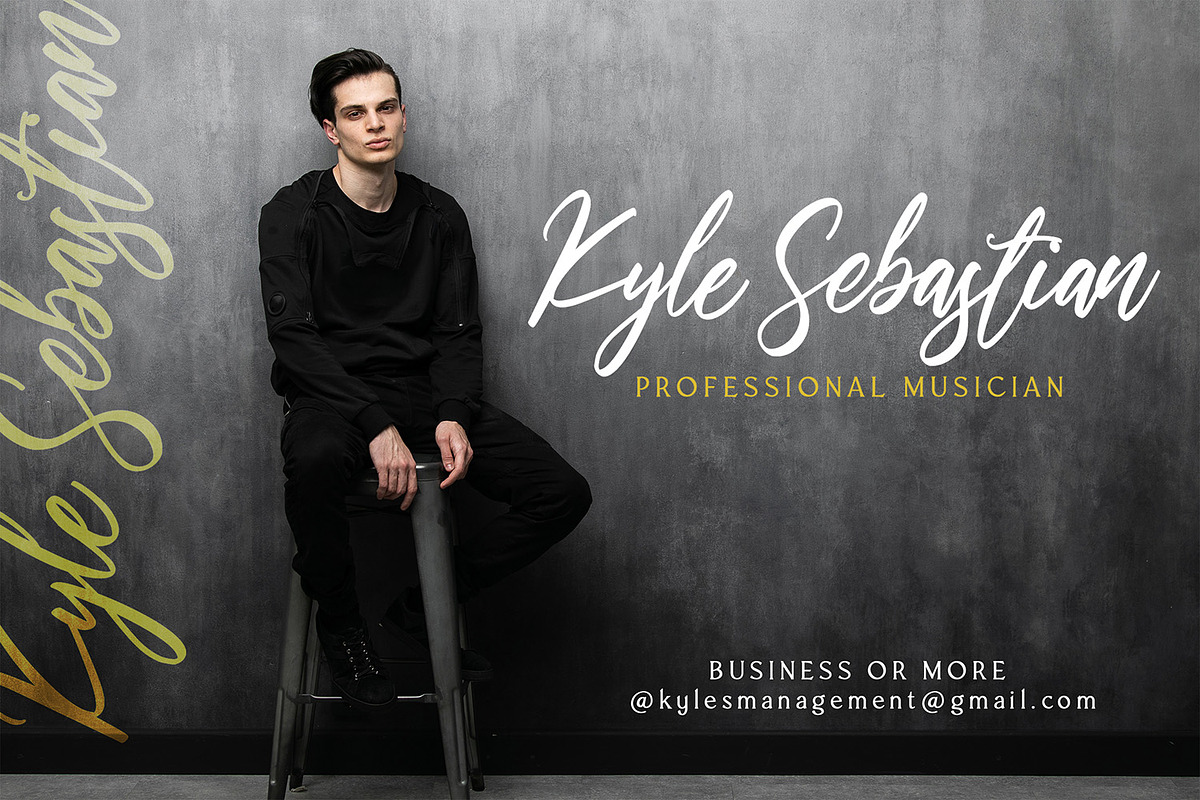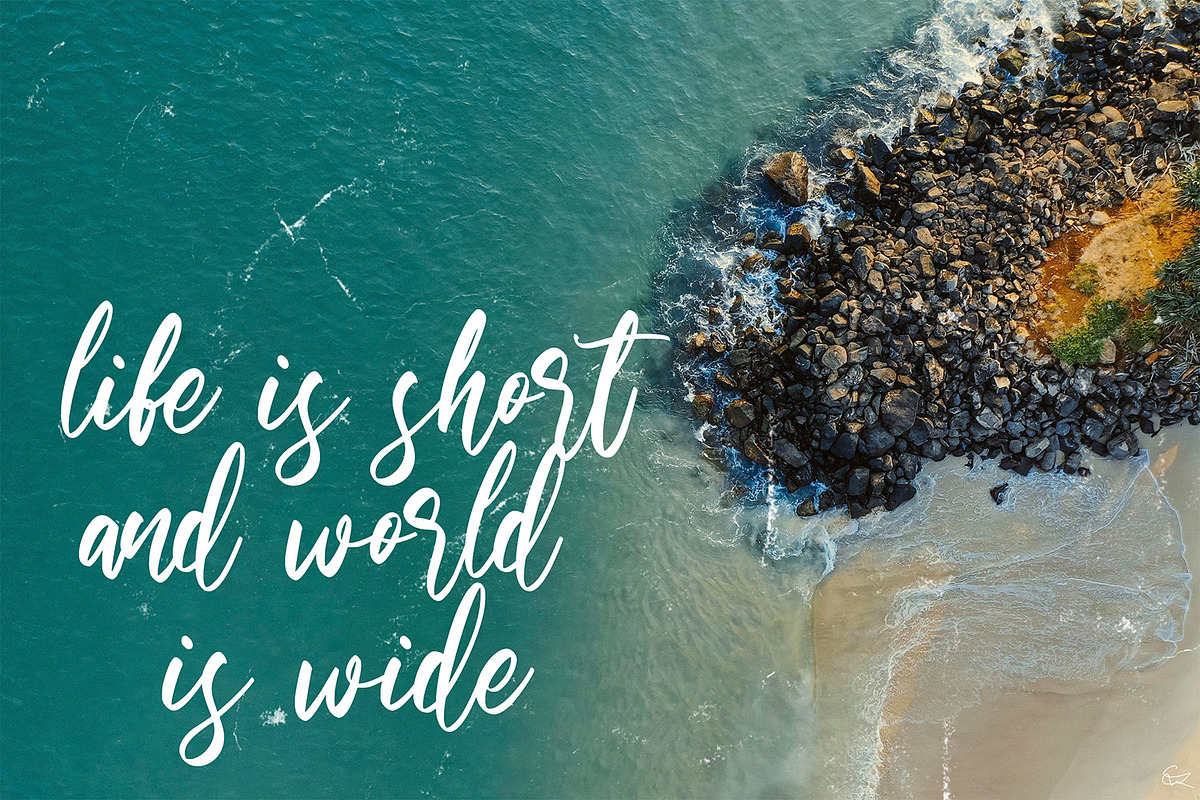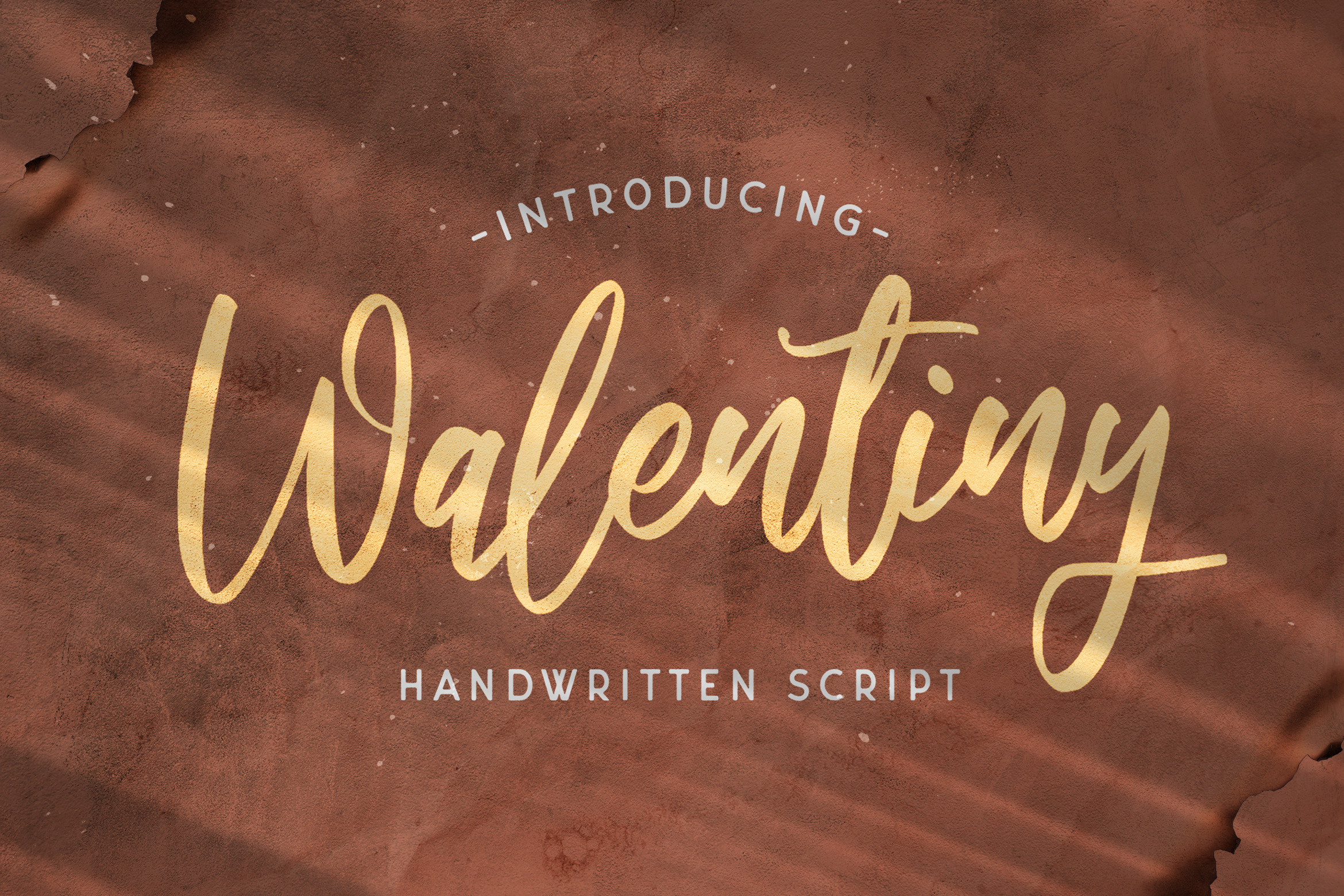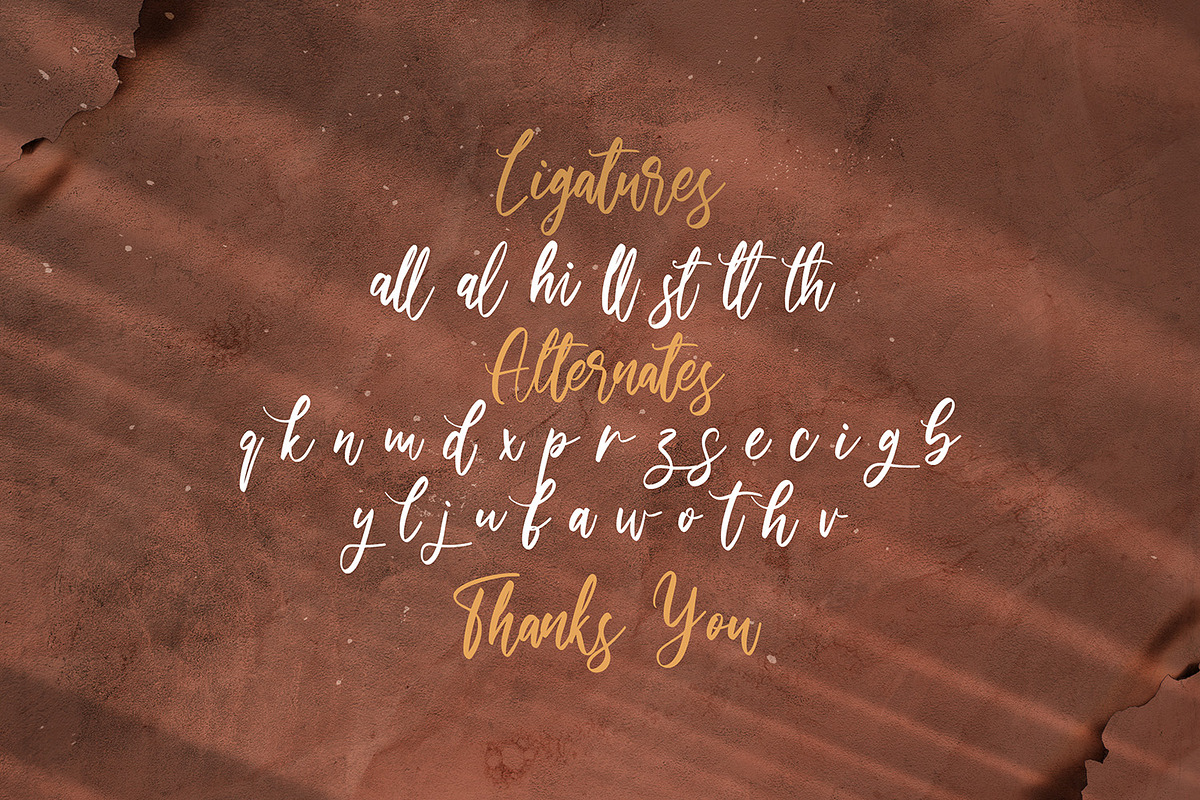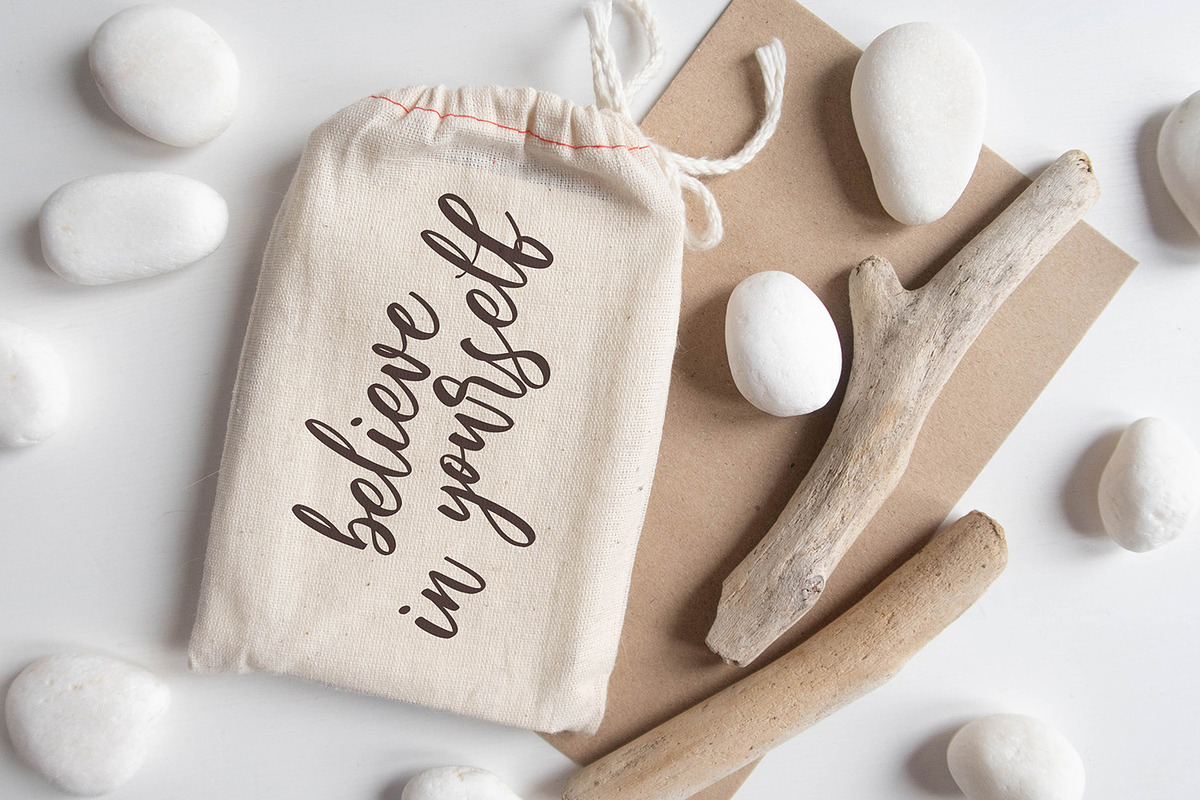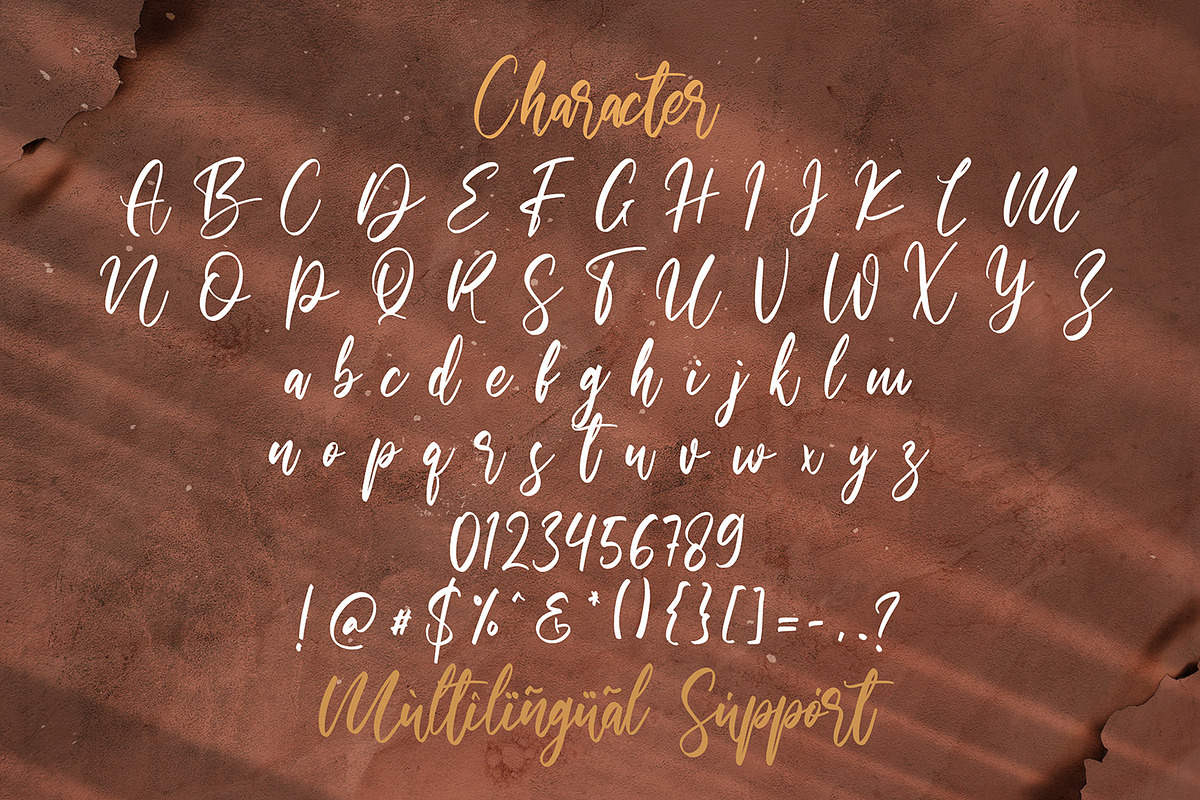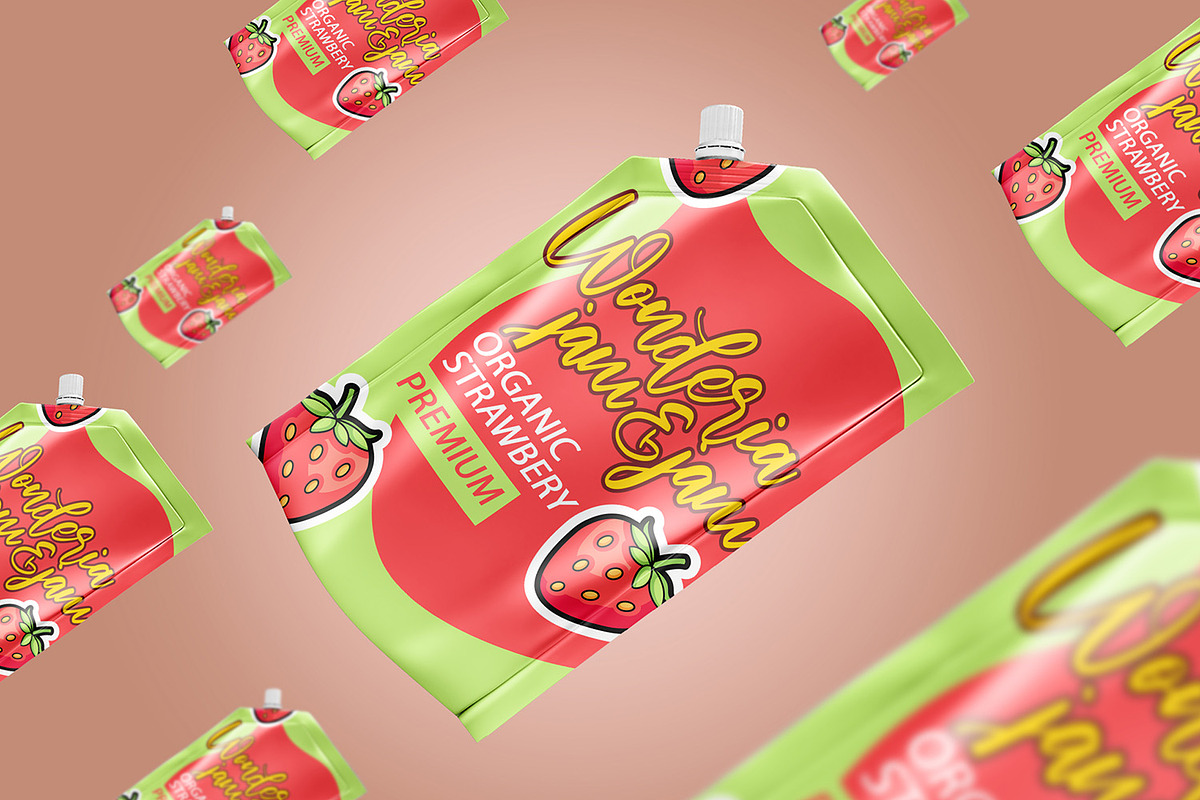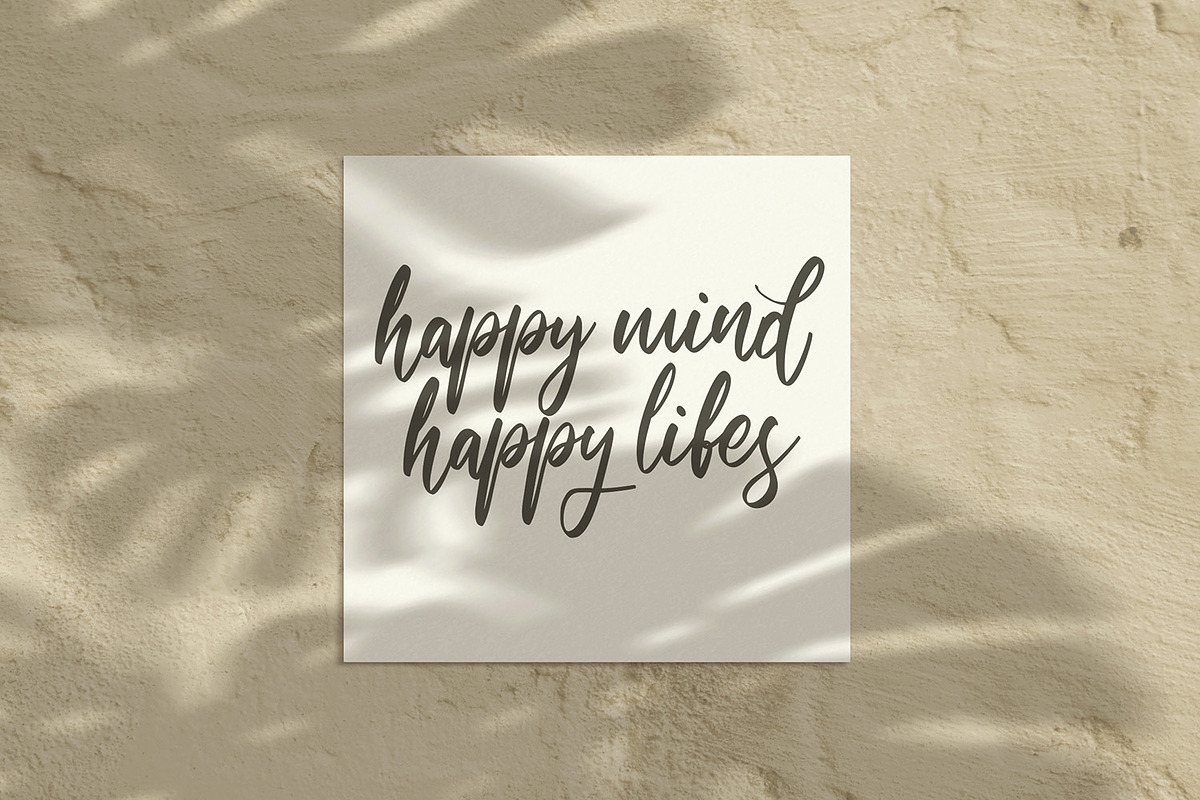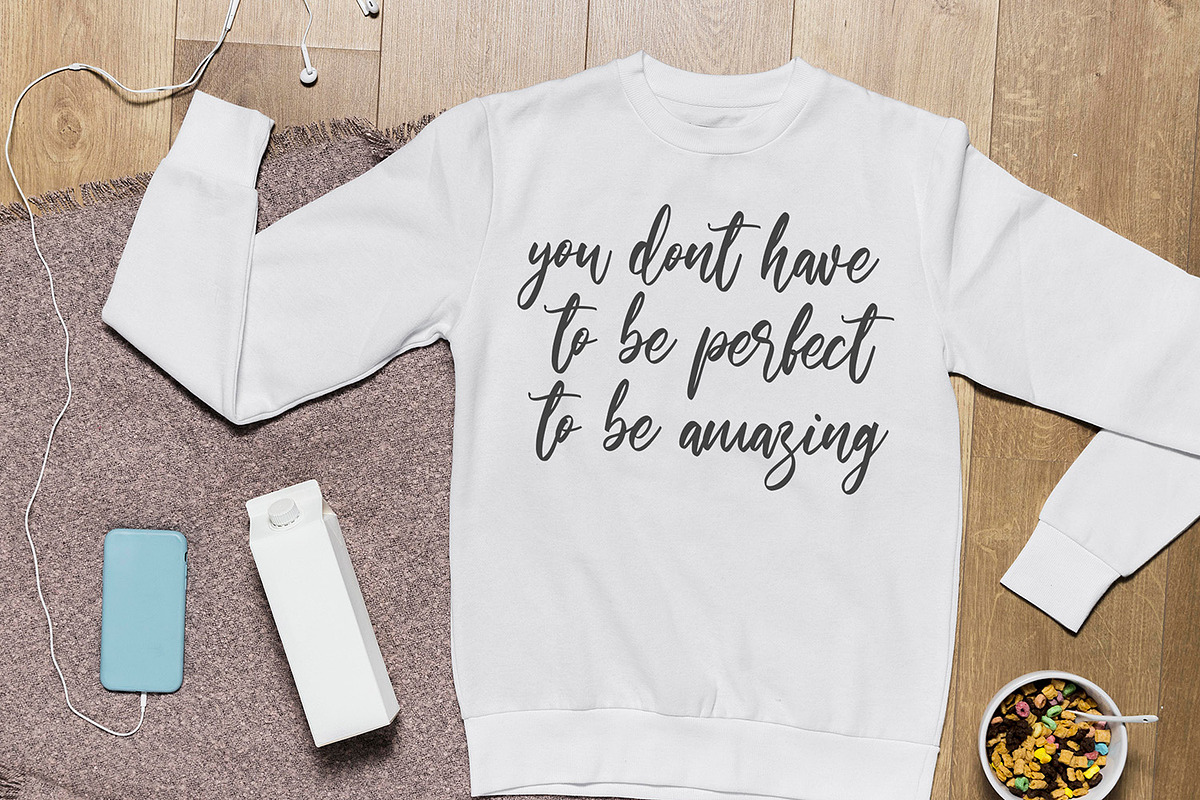
Walentiny - Handwritten Font
Introducing Walentiny - Handwritten Font
Walentiny is a Script Font with Handwritten Style. The Walentiny font made with digital brush pen strokes that making this font look authentic. This font is perfect for fashion brand, wedding invitation, business card, logo brand, signature, and then calligraphy.
This Font contains Elegant, Authentic, Luxury and has a Unique Concept.